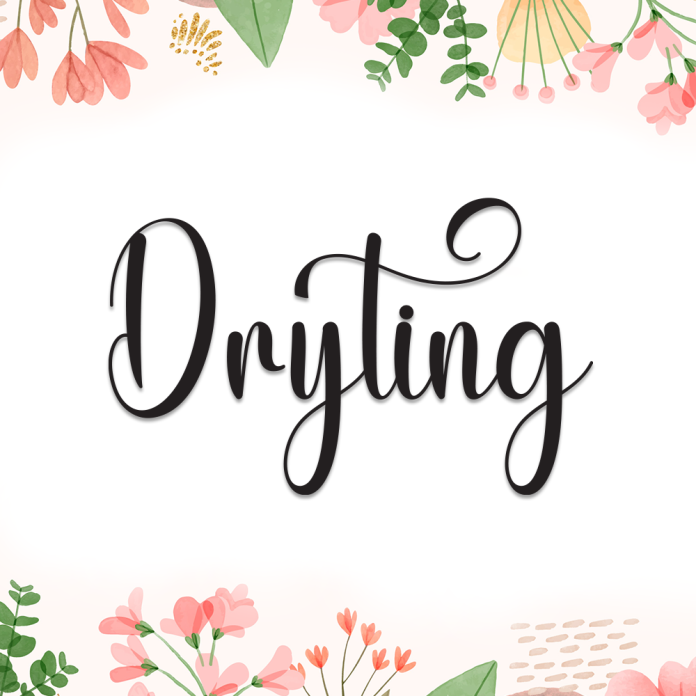
Dryting is a raw and artistic handwriting font with a textured, dry-brush appearance. It captures the feeling of authentic handwritten notes with a unique, slightly rugged edge.
Ideal for creative projects like posters, signature-style logos, social media graphics, journals, and DIY crafts — Dryting brings a handmade, expressive look to your designs.
Rough brush-style strokes
Personal and authentic feel
Organic, free-flowing letterforms
Add a personal and bold statement to your work with the artistic charm of Dryting.